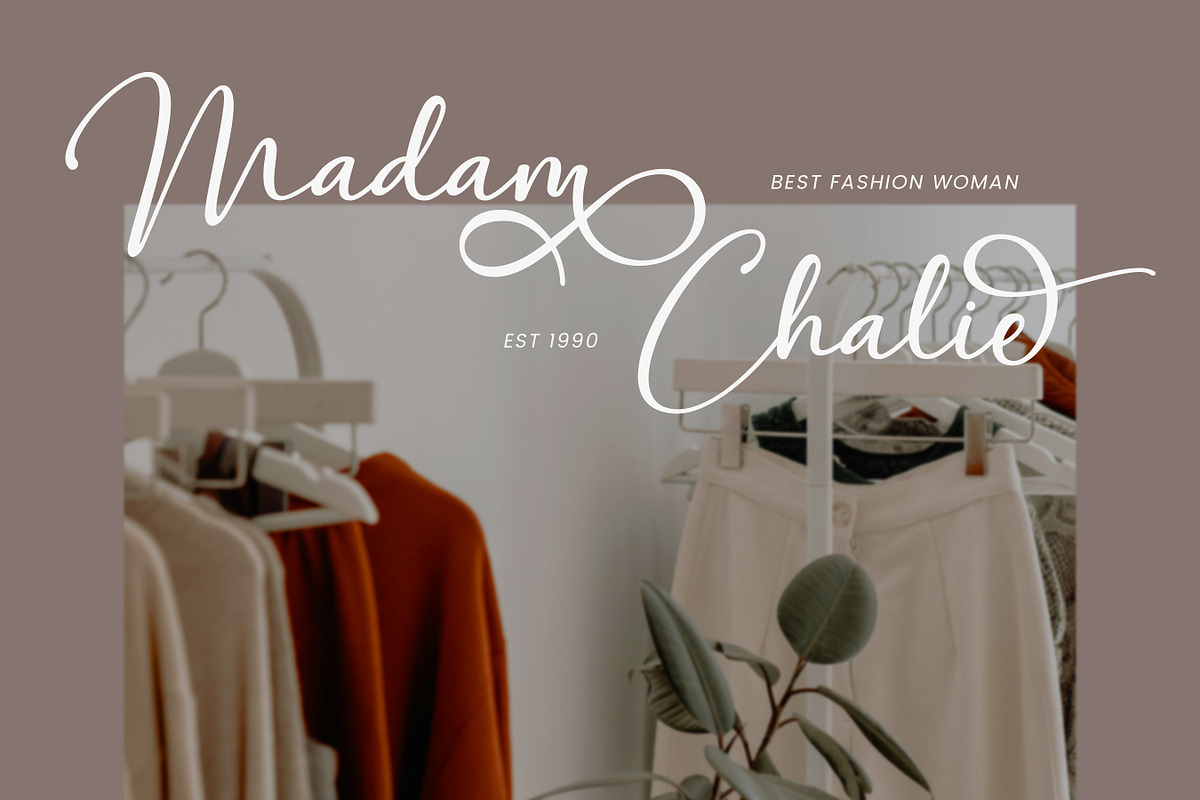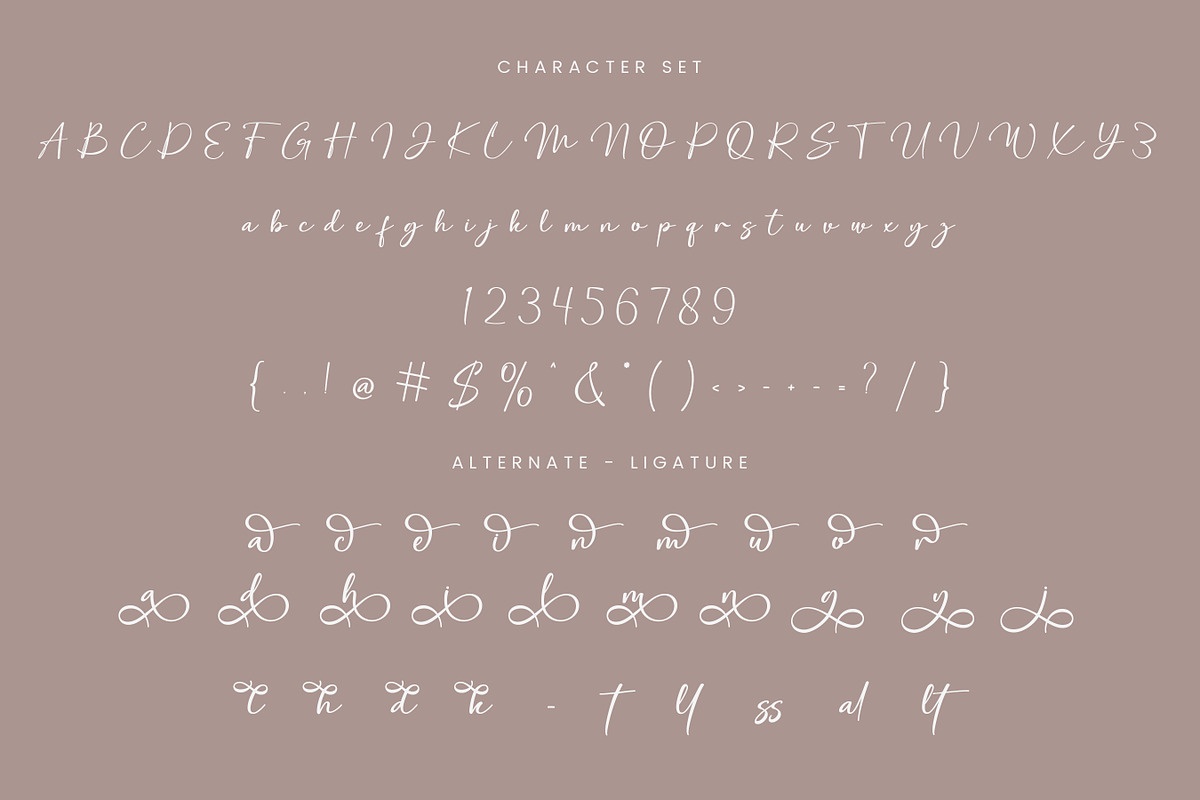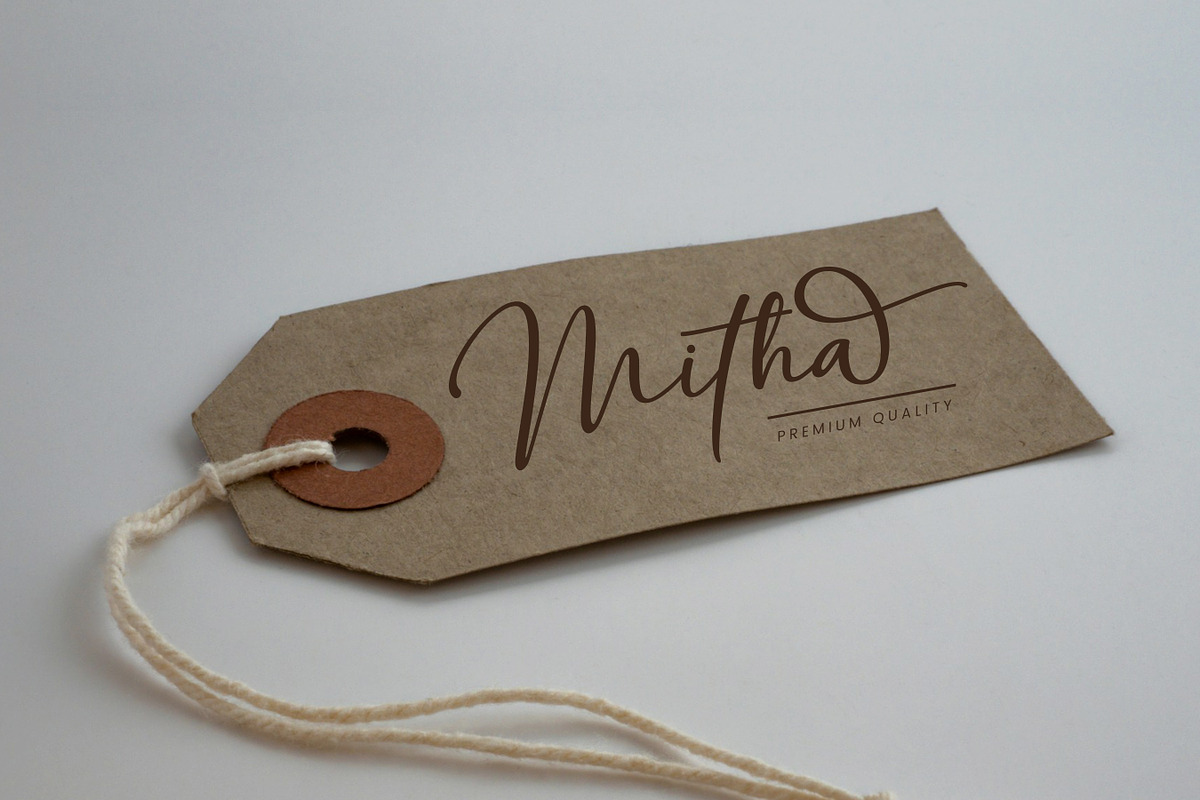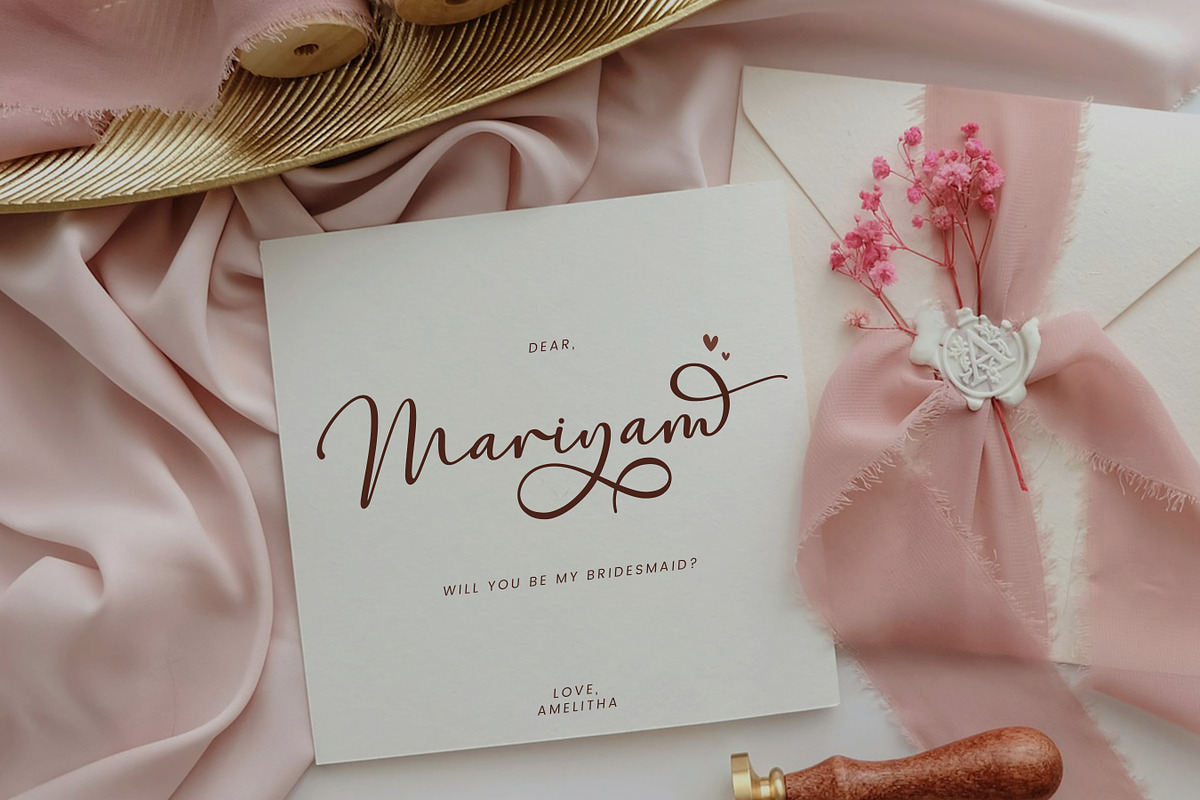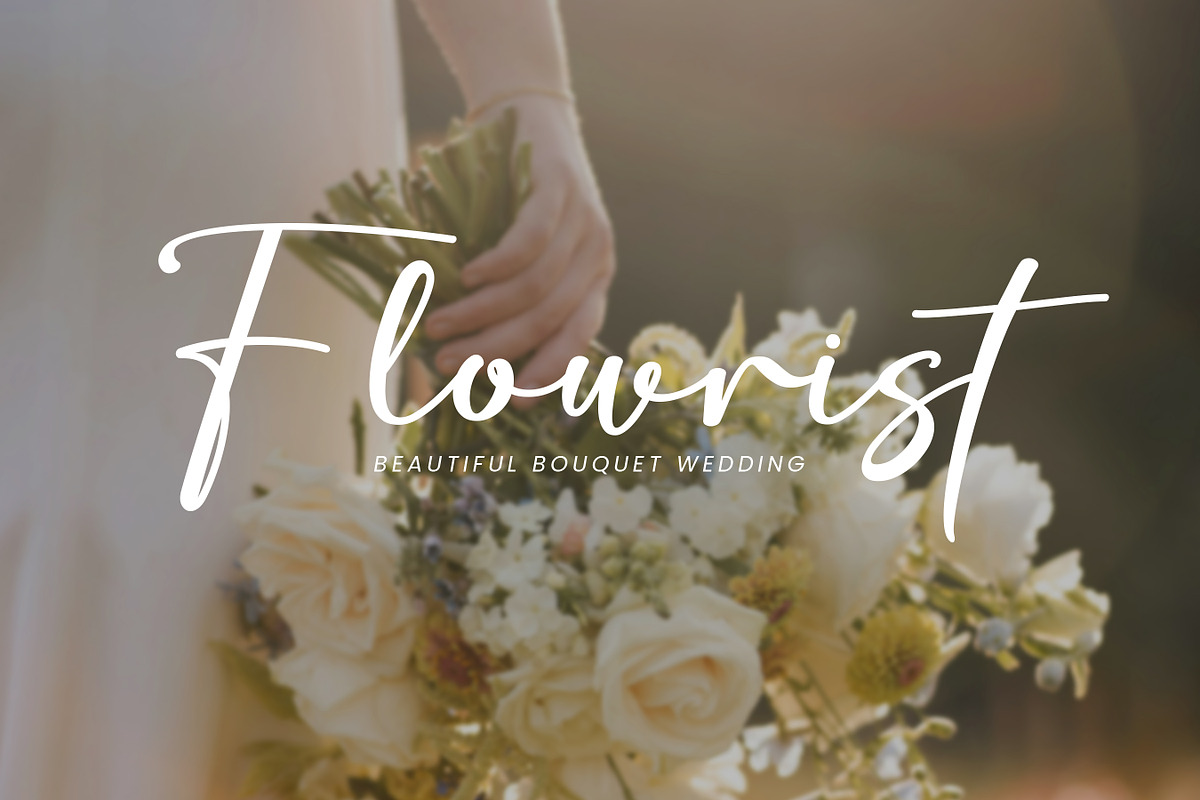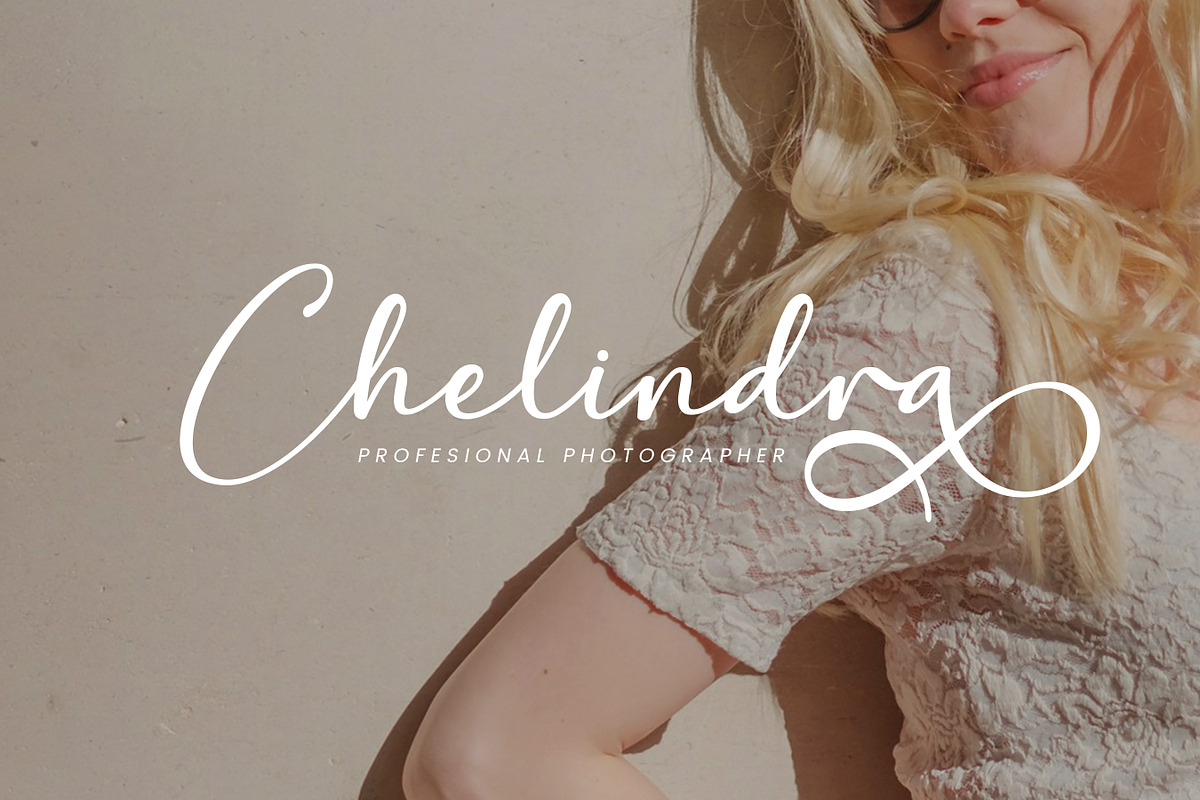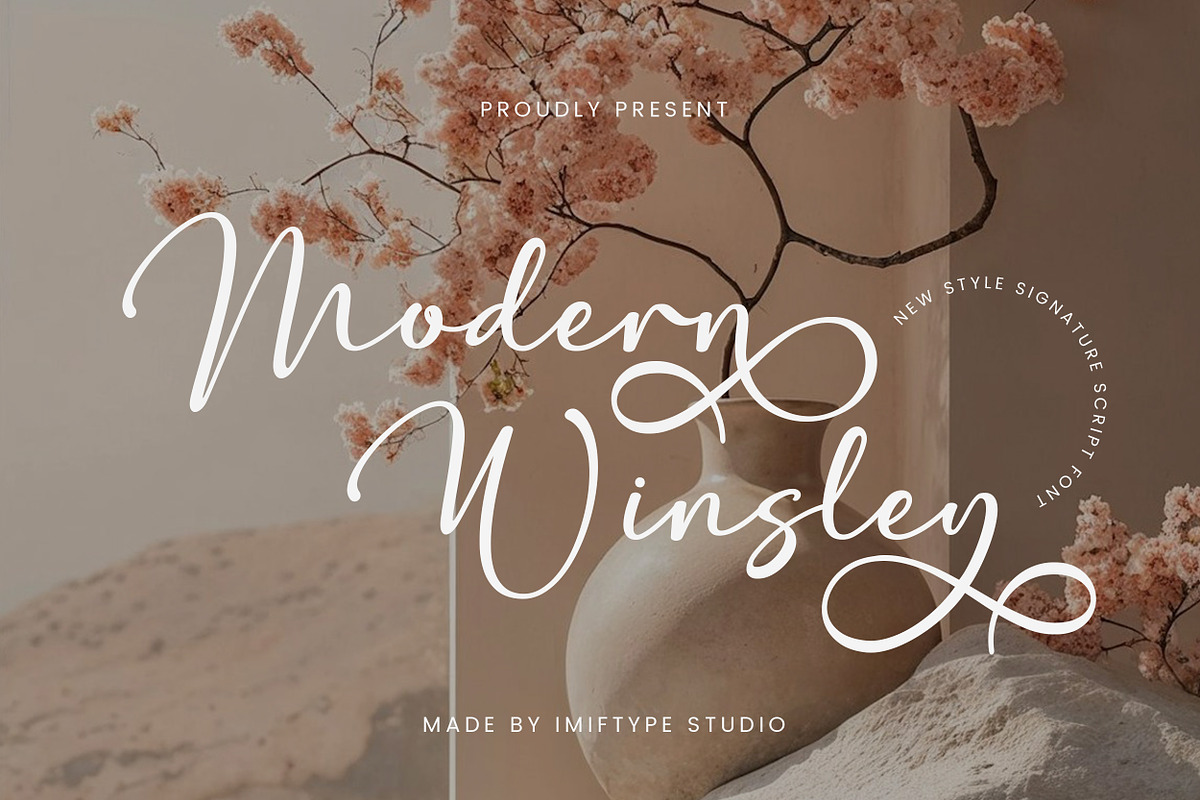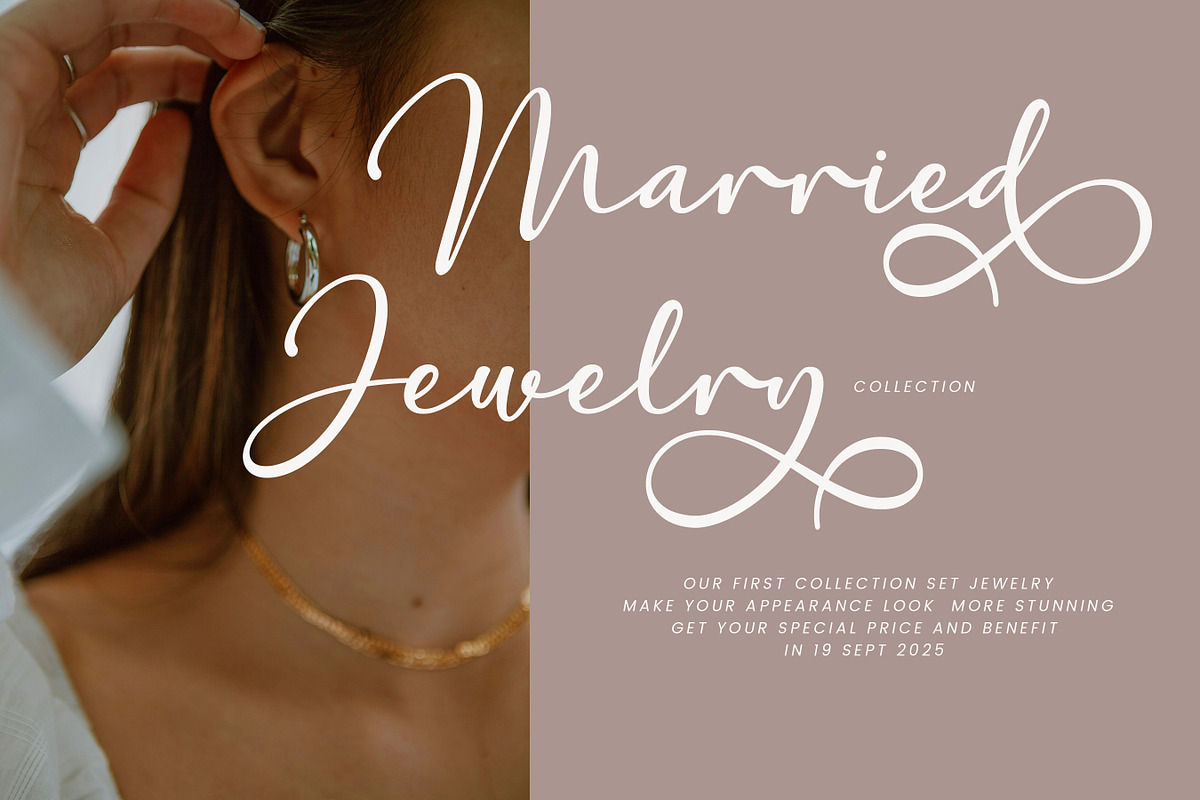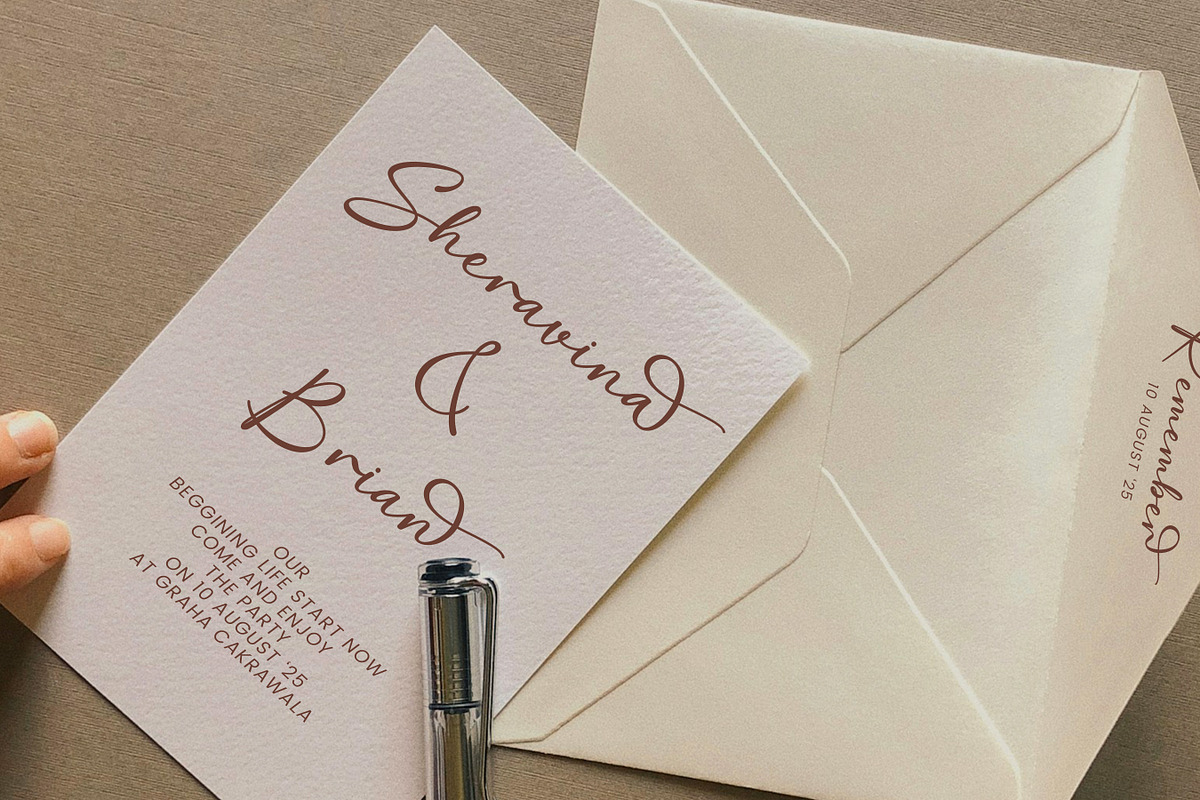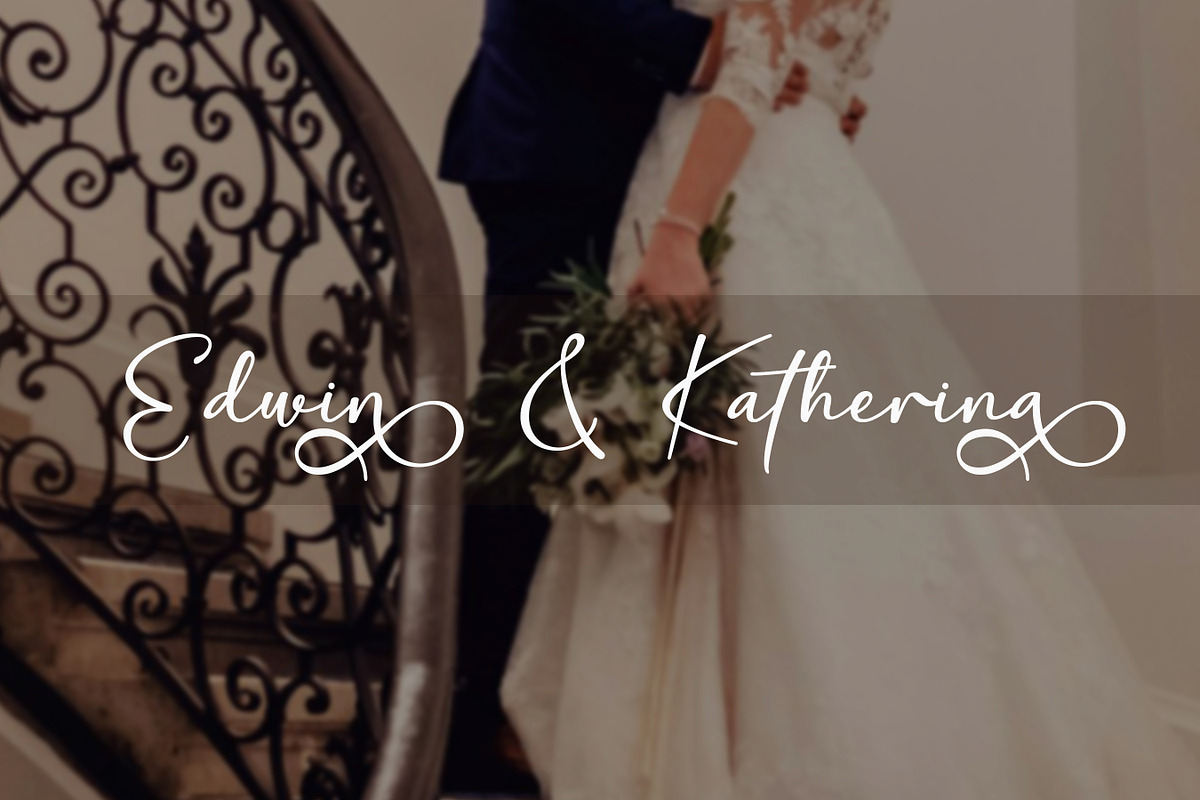
Modern Winsley – Signature Script
Modern Winsley is a modern signature script font designed to bring elegance, softness, and personality to your designs. Featuring smooth strokes, flowing curves, and stylish ligatures, this font is perfect for branding projects that need a refined and handwritten touch.
Modern Winsley works beautifully for logos, wedding invitations, fashion branding, beauty products, editorial layouts, social media graphics, quotes, and premium packaging. Its natural handwritten feel creates a warm and sophisticated impression while remaining clean and modern.
This font is easy to use and highly versatile, allowing you to create stunning typography across both digital and print designs. Whether you are working on luxury branding, minimalist designs, or romantic visuals, Modern Winsley adds a graceful and timeless character to your work.
Created with attention to detail, Modern Winsley is a reliable choice for designers who value elegance, readability, and aesthetic harmony.